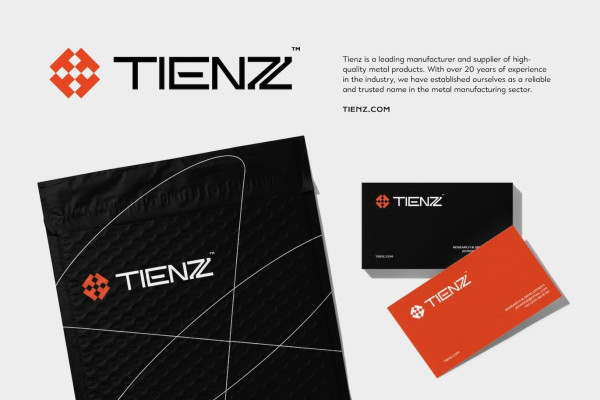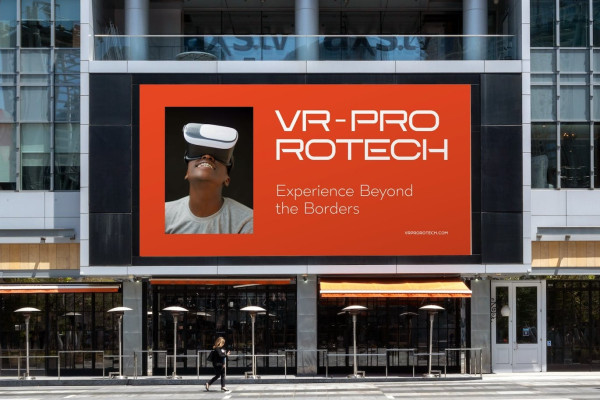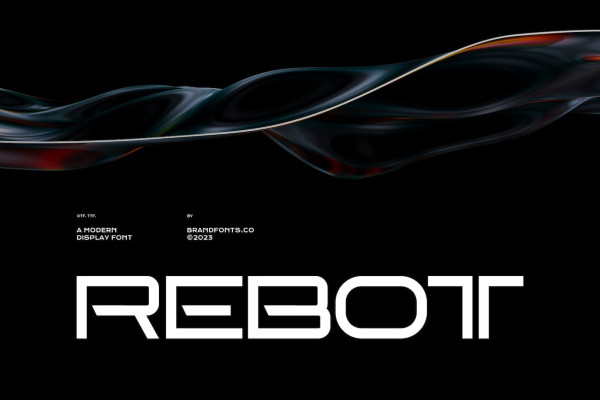
Rebot Display Font
Rebot Display Font – A Modern and Futuristic Display Font by BrandFonts.co. Experience the cutting edge of typography with “Rebot,” a sleek modern display font crafted by BrandFonts.co. With a touch of futurism, Rebot pushes the boundaries of design, making it the ideal choice for projects that seek to embody both modernity and innovation.
Rebot’s contemporary design exudes a sense of sophistication and forward-thinking aesthetics, effortlessly conveying a futuristic vibe. Its meticulously crafted letterforms captivate the eye, making it a versatile font for a range of design applications.
Whether you’re creating captivating headlines, futuristic branding, or visually striking posters, Rebot’s modern appeal adds an element of avant-garde to your work. Its legibility and futuristic flair combine to amplify the visual impact of your designs and messages.
Discover a world of design possibilities with “Rebot Display Font” – a font that transcends the ordinary, infusing your projects with a modern, futuristic essence. Elevate your designs with the touch of innovation that defines BrandFonts.co.